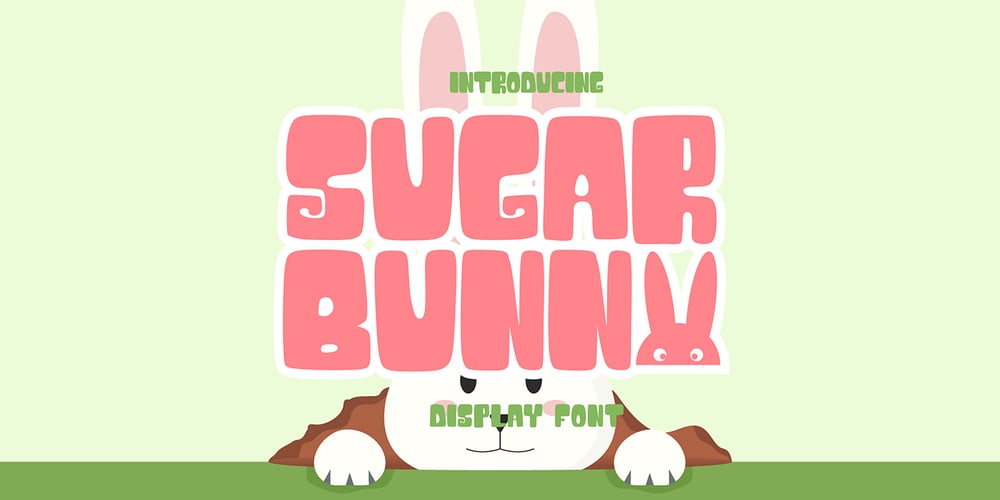
Sugar Bunny Font Family was designed by Sipanji and published by Sipanji21. Sugar Bunny contains 1 styles and family package options. Sugar Bunny is a cute and bulky display font that exudes charm and playfulness. With its bold and rounded letterforms, this font is perfect for designs that need a cheerful and friendly touch. Its soft, approachable aesthetic makes it ideal for children’s projects, packaging, toys, posters, and whimsical branding. Whether you’re creating fun titles or eye-catching graphics, Sugar Bunny adds a delightful and sweet vibe to any design, making it a perfect choice for bringing smiles and warmth to your audience.